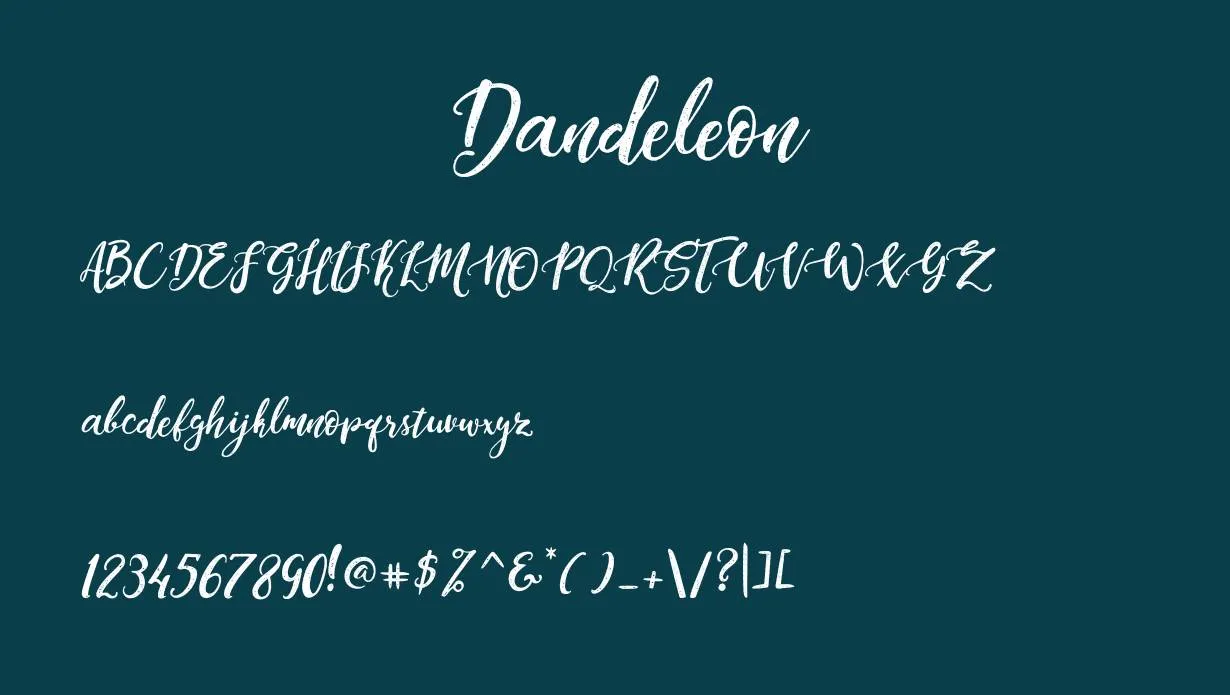
This font was designed by the talented designer Isabella Flores, the Dandeleon font stands as a graceful and whimsical typeface within the category of decorative and script fonts. Flores celebrated for her ability to infuse fonts with a sense of elegance and charm, has created a font that is perfect for projects requiring a touch of sophistication.
The Dandeleon font, with its flowing curves and ornate details, adds a romantic and artistic flair to designs, making it a delightful choice for invitations, greeting cards, or any project that seeks to convey a sense of warmth and creativity.
Dandeleon Font Info
| Name | Dandeleon Font |
| Designer | Eric Kurniawan |
| Style | Calligraphy |